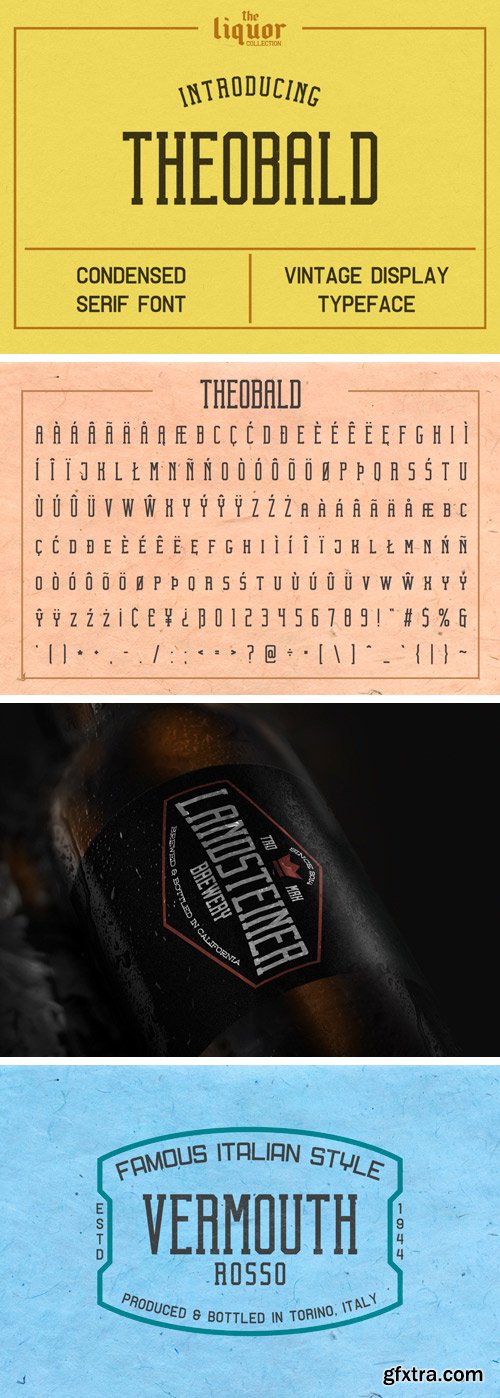
Theobald Clean Font
Theobald Clean is a vintage condensed typeface inspired by vintage beer labels, posters and advertising. Theobald contains multilingual support.